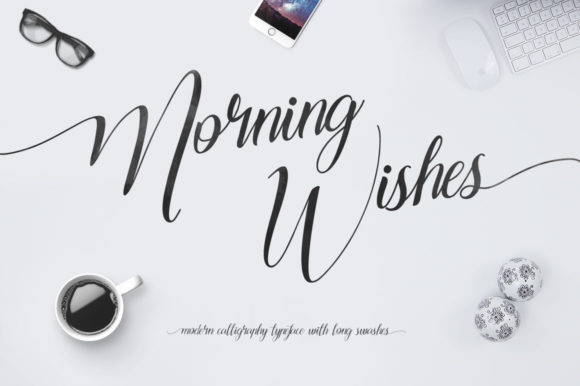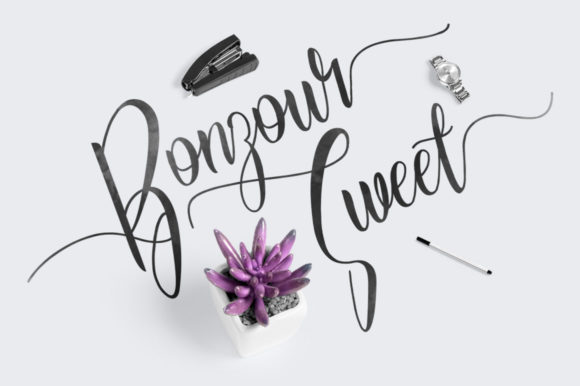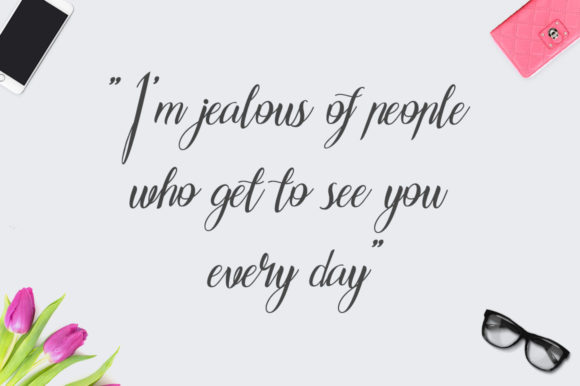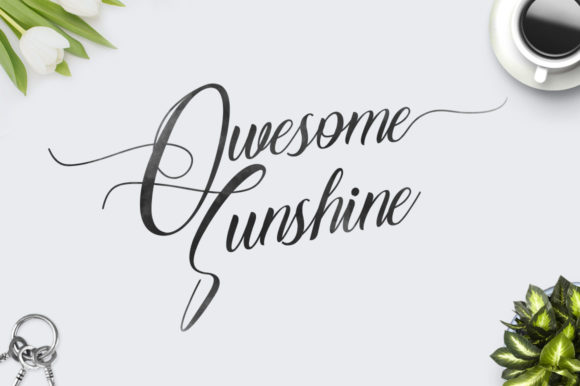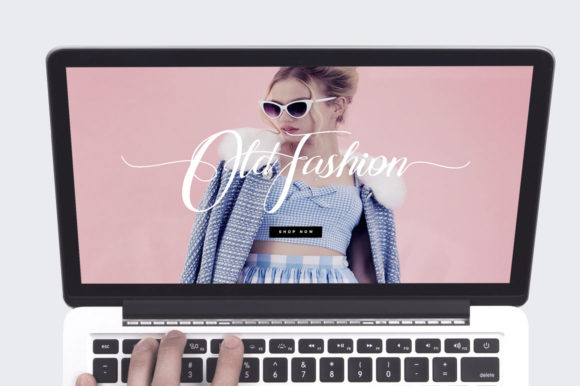
HomeScript FontsMorning Wishes Font Script Fonts Morning Wishes Font FacebookXPinterestWhatsApp Morning Wishes Font Poster 2 Morning Wishes Font Poster 3 Morning Wishes Font Poster 4 Morning Wishes Font Poster 5 About Morning Wishes Font Morning Wishes is a bold and charming handwritten font with a cool twist. Get inspired by its unique look! DOWNLOAD NOW People also explored Nocturne Font Shintia Font Love Monogram Font Harmonia Font Waiting Summer Font Bionic City Gheray Font Vintage Font Faithfull 291 0 TagsMorning Wishes Font Previous articlePassion FontNext articleMy Last Breath Font LEAVE A REPLY Cancel reply Comment: Please enter your comment! Name:* Please enter your name here Email:* You have entered an incorrect email address! Please enter your email address here Website: Save my name, email, and website in this browser for the next time I comment. Personal Use Free Rosebirth Personal Use Free Read more about this font Colourbars Personal Use Free Read more about this font Doriss Girls Family Personal Use Free Read more about this font Stigma Font Personal Use Free Read more about this font BLOG Free vs Paid Fonts: Why Investing in Premium Fonts Is Worth It Free vs Paid Fonts: Why Premium Fonts Are Worth It in 2025 The debate of free vs paid fonts continues in the design world. While... How to Cut Any Font on Cricut: Convert a Font to SVG (Free) Best Fonts for T-Shirt Design – Top 2025 Picks 5 Fonts That Will Dominate Design Trends in 2026